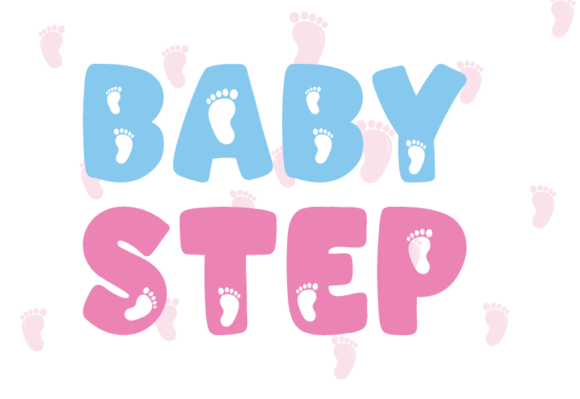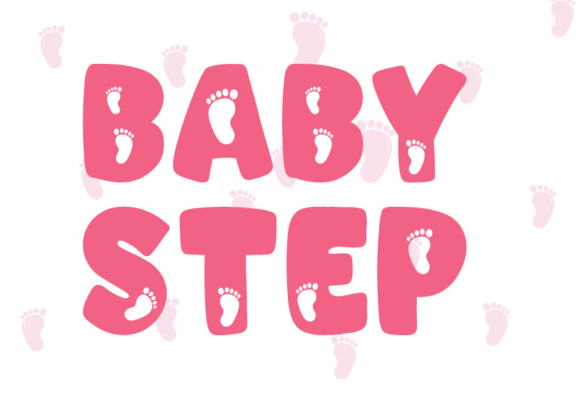
Introducing the Baby Step Font: A Playful Embodiment of Youthful Joy
In the world of typography, few fonts capture the essence of childhood wonder as effortlessly as the “Baby Step” font. This dynamic, playful font is a precision-designed embodiment of youthful vigor and joy, radiating an infectious energy that is impossible to ignore. With its vivid personality and charismatic charm, “Baby Step” is the perfect addition to any design project that seeks to evoke the carefree spirit of childhood.
The Inspiration Behind Baby Step
The “Baby Step” font draws inspiration from the unbridled creativity of a child’s handwriting. Its characters are designed to mirror the playful, unbounded scribbles of a child’s pen, imbuing the font with a sense of joy and spontaneity. Each letter is carefully crafted to convey the sense of wonder and curiosity that defines childhood, making “Baby Step” a font that is both nostalgic and refreshingly modern.
The “Baby Step” font boasts a range of distinctive design characteristics that set it apart from other fonts. Its letters are playful and irregular, with a charming, hand-drawn quality that gives the font its unique personality. The font’s lines are fluid and dynamic, with a sense of movement and energy that is impossible to ignore. Whether used for headings, body text, or decorative elements, “Baby Step” adds a touch of whimsy and fun to any design project.
Uses for Baby Step
The versatility of the “Baby Step” font makes it an excellent choice for a wide range of design applications. Here are just a few ideas to get you started:
- Children’s branding and packaging: The playful, youthful energy of “Baby Step” makes it a natural fit for brands and products aimed at kids.
- Wedding and party invitations: Add a touch of whimsy and romance to your wedding or party invitations with the charming, handwritten feel of “Baby Step”.
- Stationery and greeting cards: The font’s playful, hand-drawn quality makes it perfect for stationery and greeting cards that need to stand out from the crowd.
- Digital media and advertising: Use “Baby Step” to add a touch of fun and personality to your digital media and advertising campaigns.
Why Designers and Crafters Love Baby Step
So why have designers and crafters fallen in love with the “Baby Step” font? Here are just a few reasons:
- Unique personality: “Baby Step” has a distinctive, one-of-a-kind personality that sets it apart from more traditional fonts.
- Emotional resonance: The font’s playful, youthful energy evokes a sense of nostalgia and wonder, making it a powerful tool for designers and crafters.
- Versatility: “Baby Step” can be used in a wide range of design applications, from digital media to print materials.
- Ease of use: The font is easy to read and works well in a variety of sizes, making it a practical choice for designers and crafters.
In conclusion, the “Baby Step” font is a dynamic, playful embodiment of youthful joy that is sure to bring a touch of whimsy and fun to any design project. With its vivid personality, charming design characteristics, and versatility, “Baby Step” is an excellent choice for designers and crafters looking to evoke the carefree spirit of childhood. Whether used for branding, packaging, stationery, or digital media, this font is sure to delight audiences of all ages.